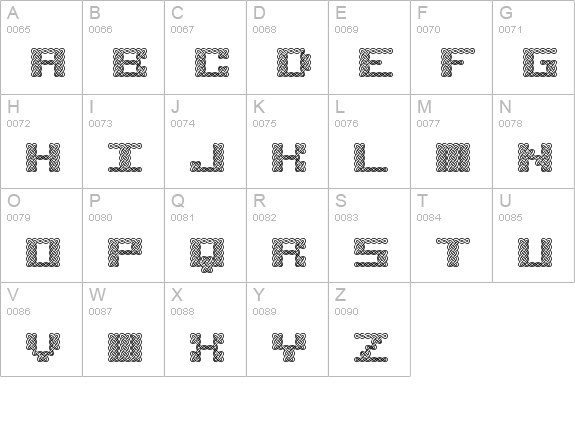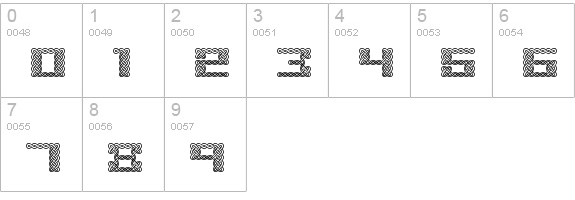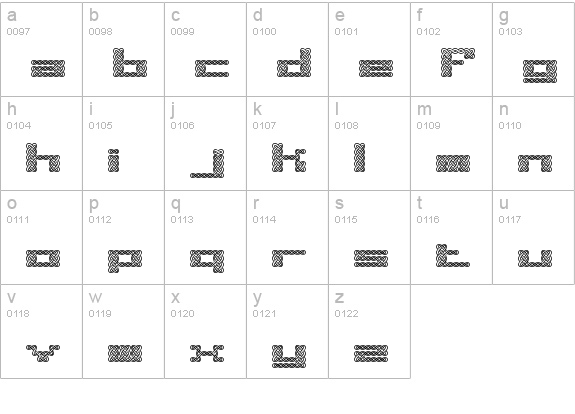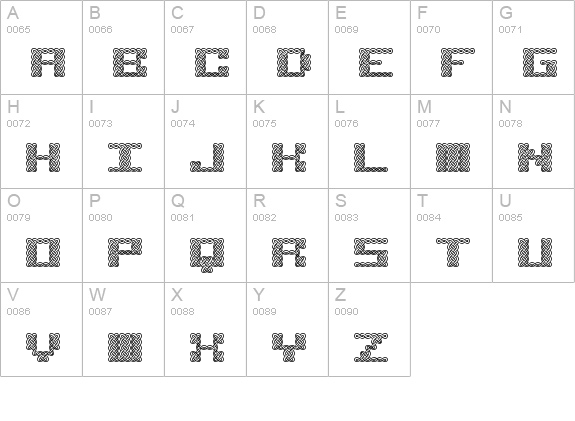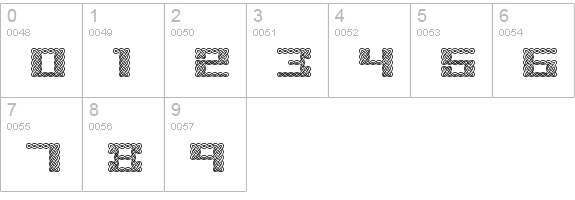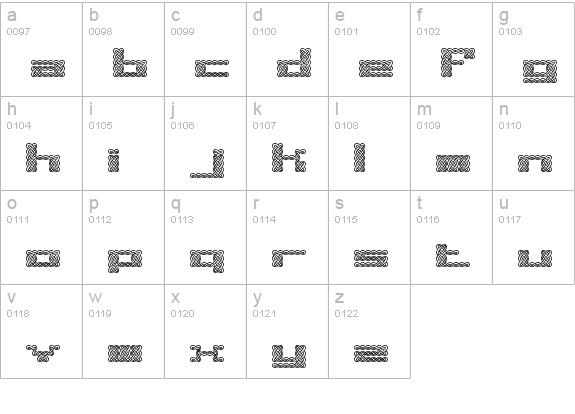
Knot BRK Font Details
Knot BRK font is a unique and stylish typeface that exudes a sense of creativity and modernity. Its intricate design features interlocking lines and loops, creating a visually captivating appearance that is perfect for projects that require a touch of elegance and sophistication. The font's bold and eye-catching look makes it suitable for a wide range of applications, from branding and advertising to packaging and editorial design. What sets Knot BRK font apart is not only its striking aesthetics but also its versatility. Whether you're looking to create a logo, poster, or website, this font will add a touch of flair and originality to your designs. Its clean and well-defined characters ensure readability while still making a bold statement. And the best part? Knot BRK font is available for free download at FontsMarket.com. So go ahead and elevate your design projects with this stunning typeface that is sure to leave a lasting impression.